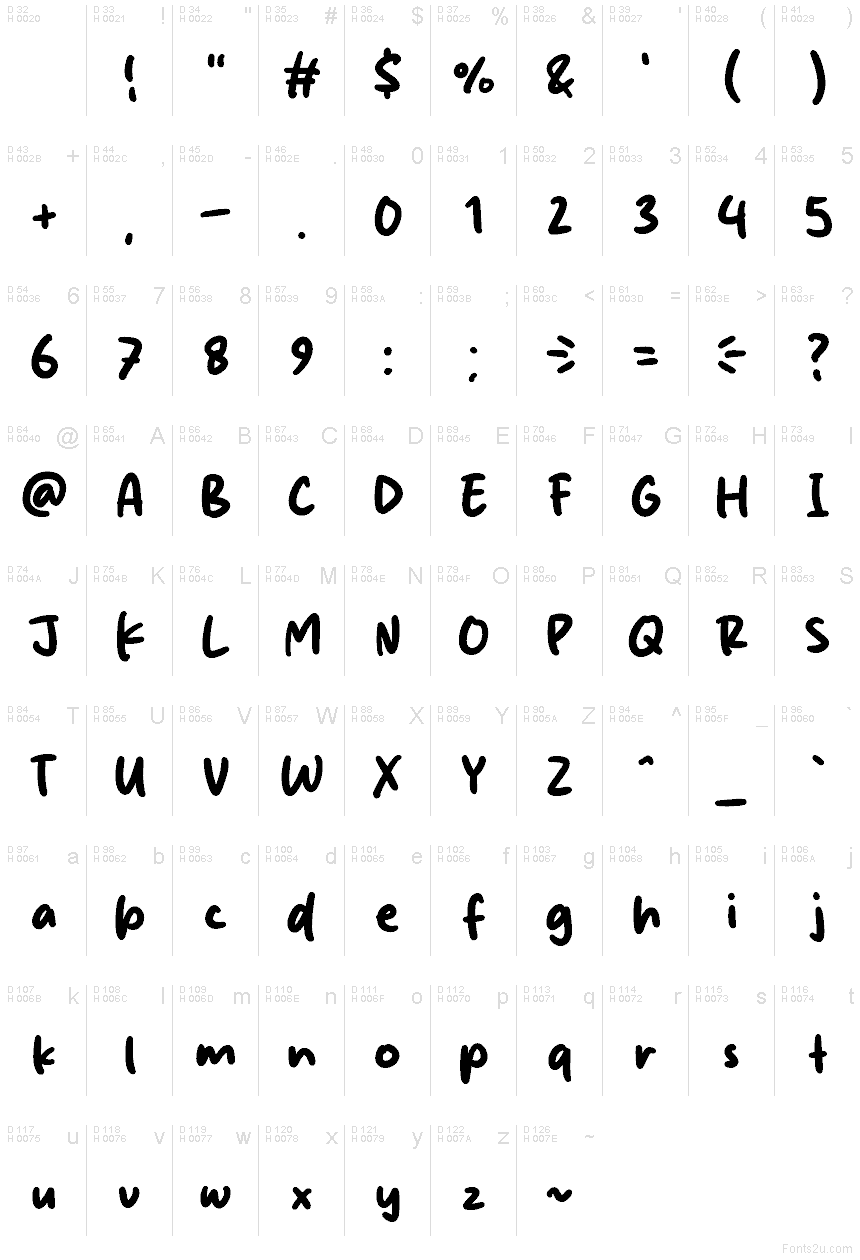
Silk Rose
Silk Rose font by Origin Type is a free handwritten typeface that fixes a common issue with brush scripts: personality without the mess. Its plush, inky strokes stay steady and rounded, giving you that casual, marker-made warmth while keeping letters clean and readable at a glance. The gentle bounce and generous spacing create a friendly rhythm that holds together in both short names and longer titles.
Using Silk Rose, you can bring cozy clarity to boutique logos, candle or coffee packaging, greeting cards, social posts, event flyers, stickers, and merch. This free font shines when you set it a touch larger, letting the soft curves breathe and the ink-like weight sing. Pair it with a neat, lightweight sans-serif to keep layouts tidy while the headline does the charming.